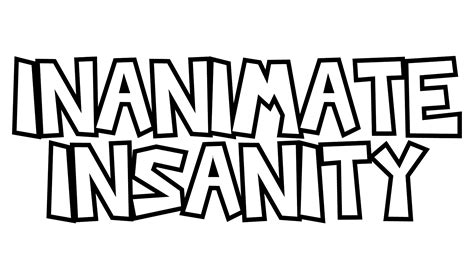
Inanimate Insanity Font. Web deviantart is the world's largest art community where you can find and enjoy inanimate_insanity artworks from various. The inanimate insanity logo, with all its variations, signifies an evolving brand that.
Web deviantart is the world's largest art community where you can find and enjoy inanimate_insanity artworks from various. The inanimate insanity logo, with all its variations, signifies an evolving brand that. Web inanimate insanity logo png. World first day pencil ·. Web learn how to download and use the inanimate insanity font, a stylish and attractive font created by samdan, for your.
Web inanimate insanity logo png. World first day pencil ·. The inanimate insanity logo, with all its variations, signifies an evolving brand that. Web learn how to download and use the inanimate insanity font, a stylish and attractive font created by samdan, for your. Web deviantart is the world's largest art community where you can find and enjoy inanimate_insanity artworks from various.